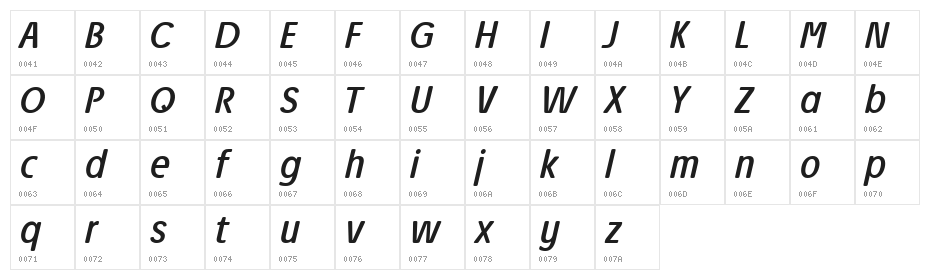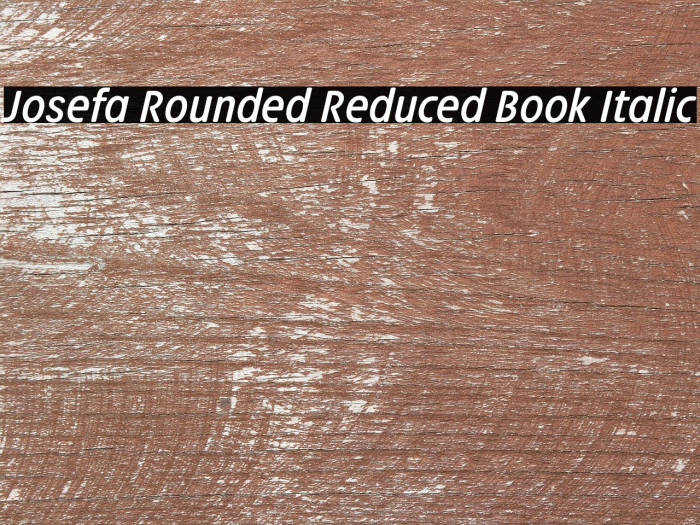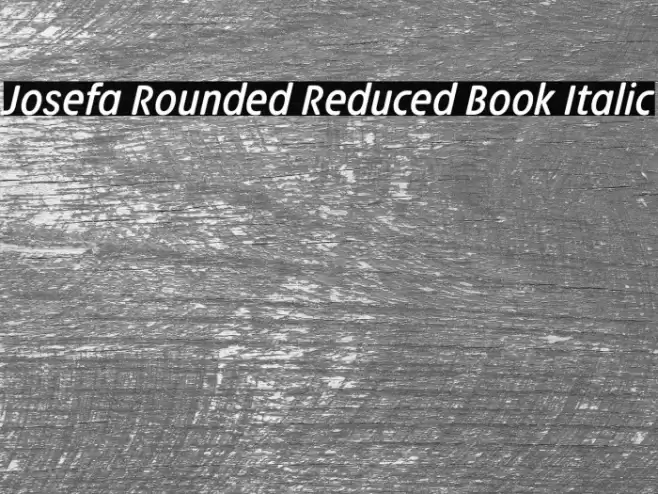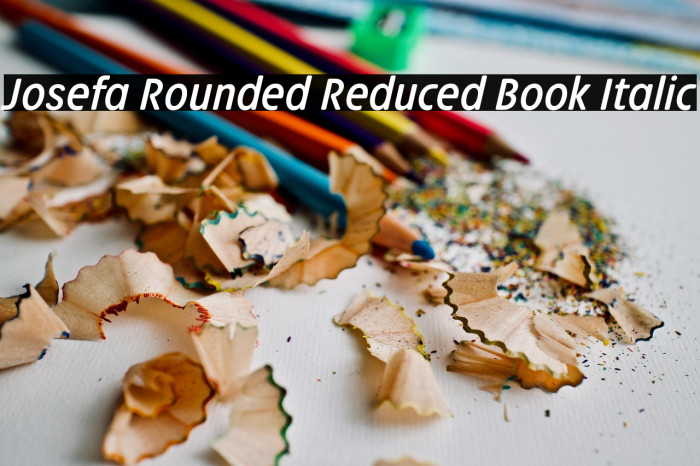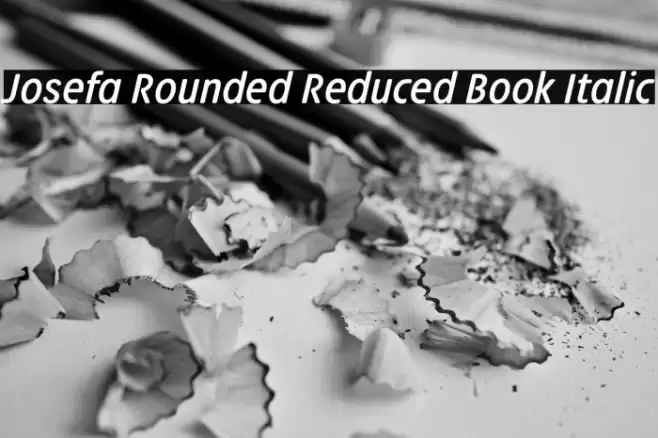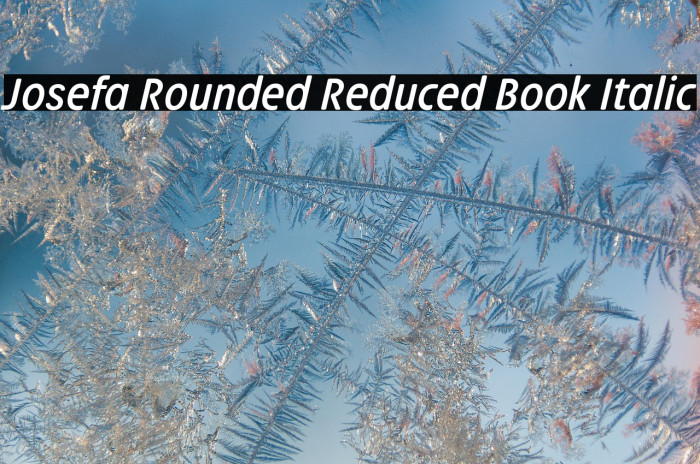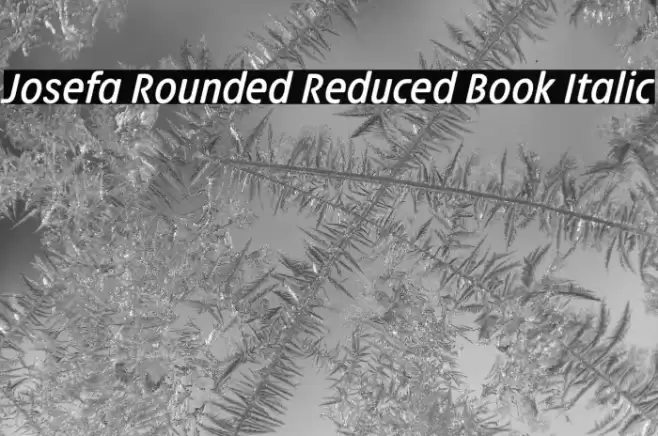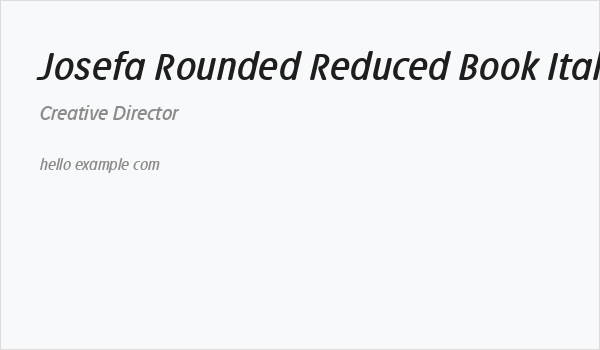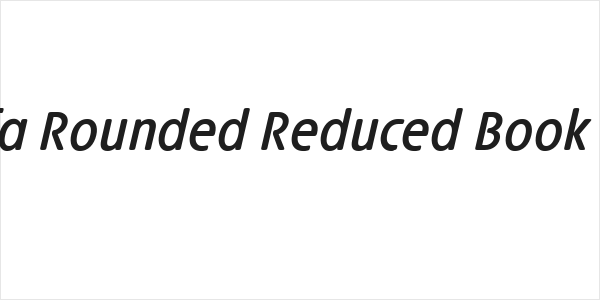
Josefa Rounded Reduced Book Italic Font
Josefa Rounded Reduced Book Italic Description
This font features a modern, rounded style with a smooth and clean appearance. The italicized form adds a sense of motion and elegance, making it suitable for dynamic and contemporary designs. The characters are well-proportioned, with a consistent stroke width that provides a harmonious look. The rounded edges soften the overall appearance, giving it a friendly and approachable feel. This typeface is versatile, working well in both digital and print media, and is particularly effective in conveying a sense of modernity and simplicity.
| Proposed Projects | Ideal for branding, advertising, web design, and editorial projects that require a modern and approachable look. |